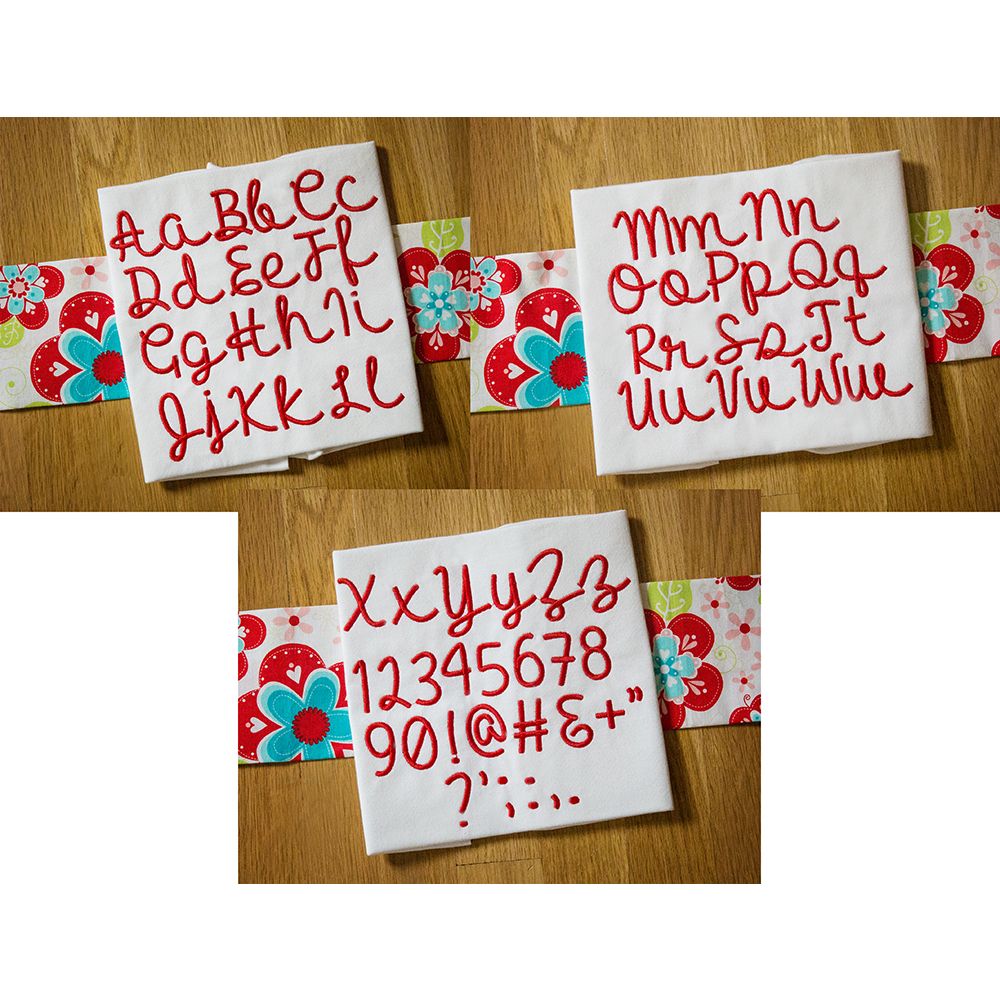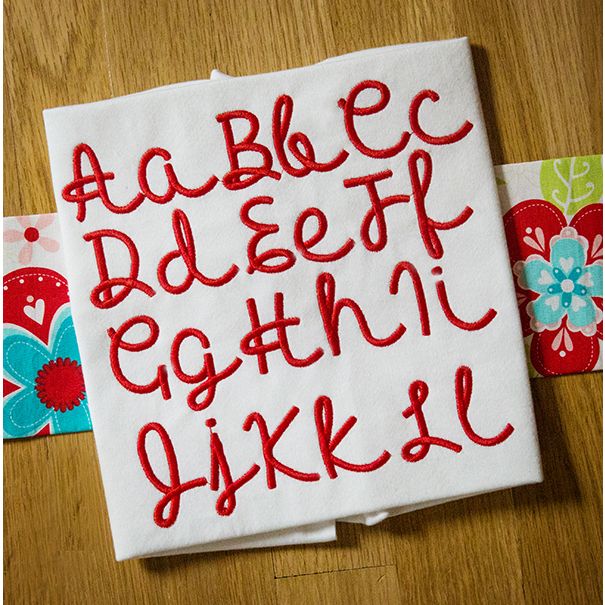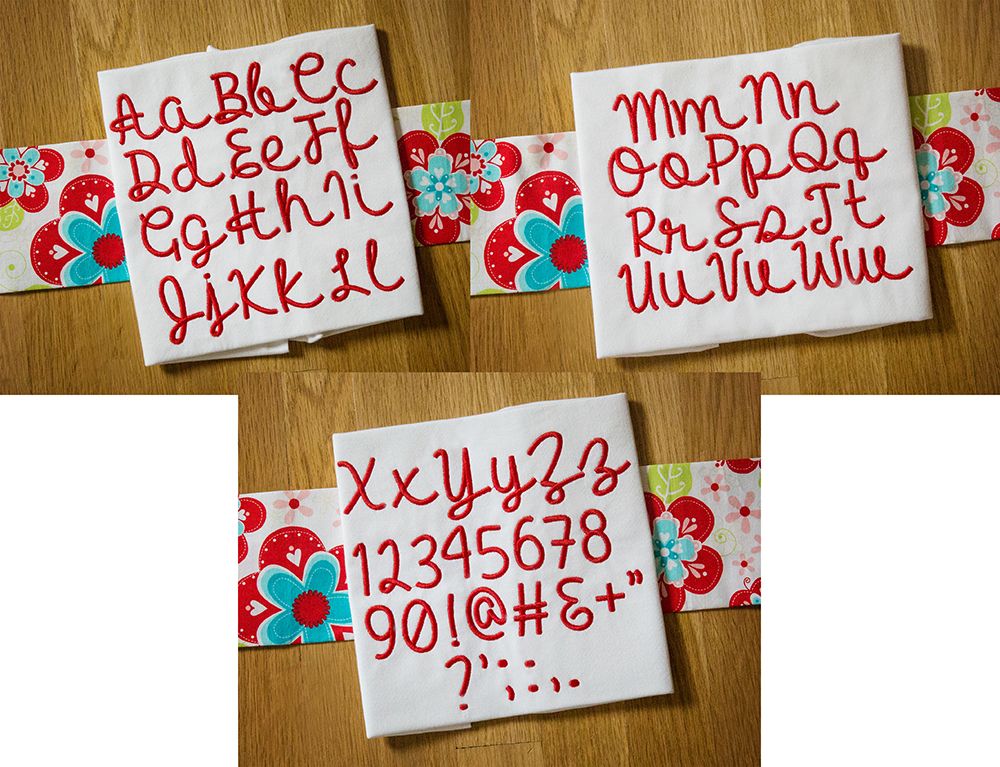
Hello Heartache Satin Stitch Embroidery Font
A sweet and simple script font...great for personalizing!  All of our font alphabets are 100% manually digitized to bring you maximum stitch quality.